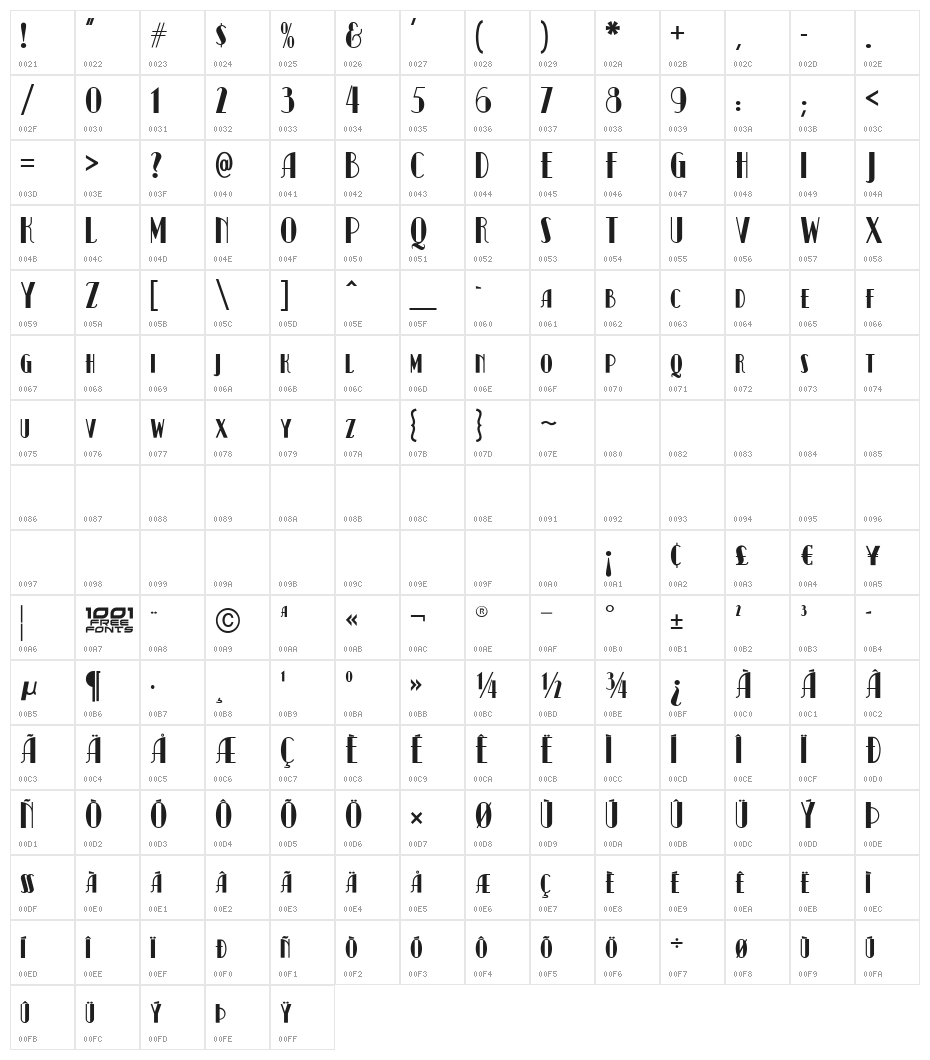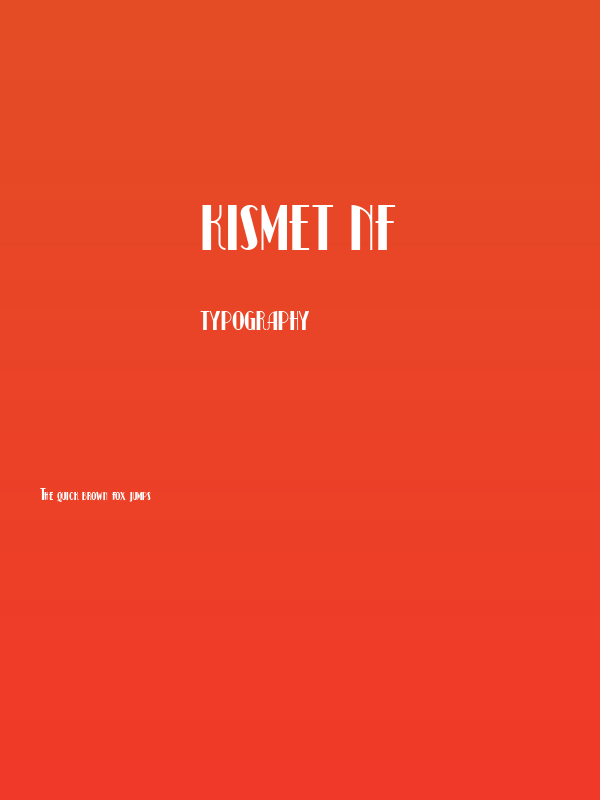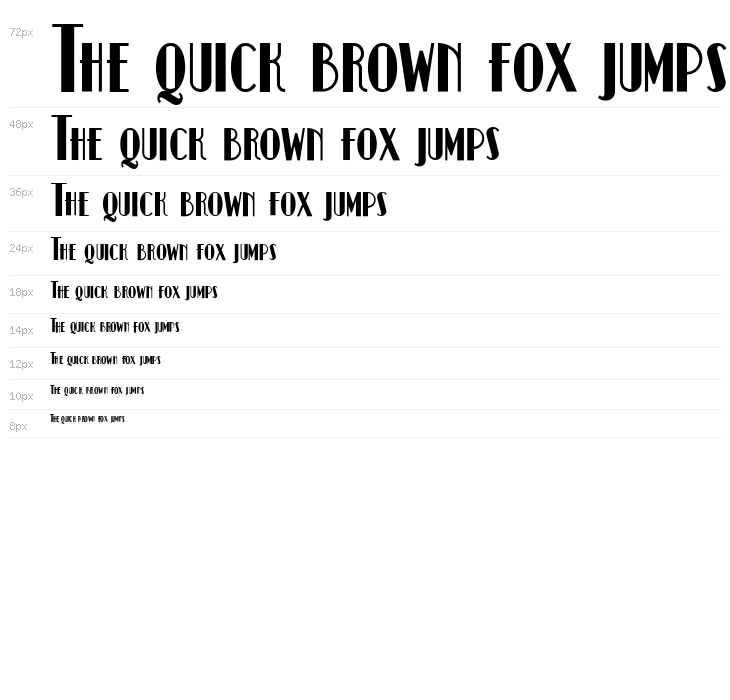
Kismet NF Font
Kismet NF Description
This font features a bold and dynamic style with a strong Art Deco influence. The uppercase letters are characterized by their tall, narrow forms and sharp angles, creating a sense of elegance and sophistication. The lowercase letters maintain a consistent style, complementing the uppercase with a slightly more rounded appearance. The numerals are distinct and easily readable, with a unique flair that matches the overall aesthetic. Special characters are designed with the same attention to detail, ensuring a cohesive look across all glyphs. This font's high contrast between thick and thin strokes adds to its striking visual impact.
| Proposed Projects | Ideal for branding, posters, and editorial design where a touch of vintage elegance is desired. |